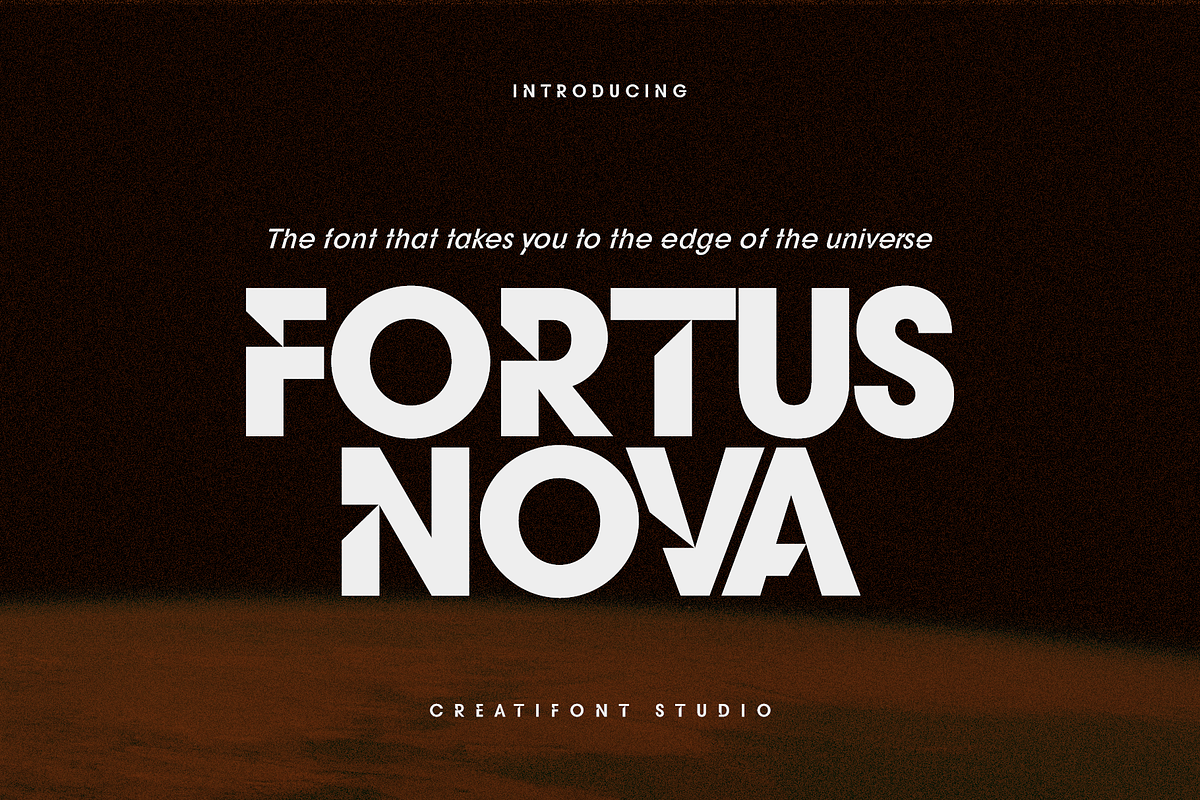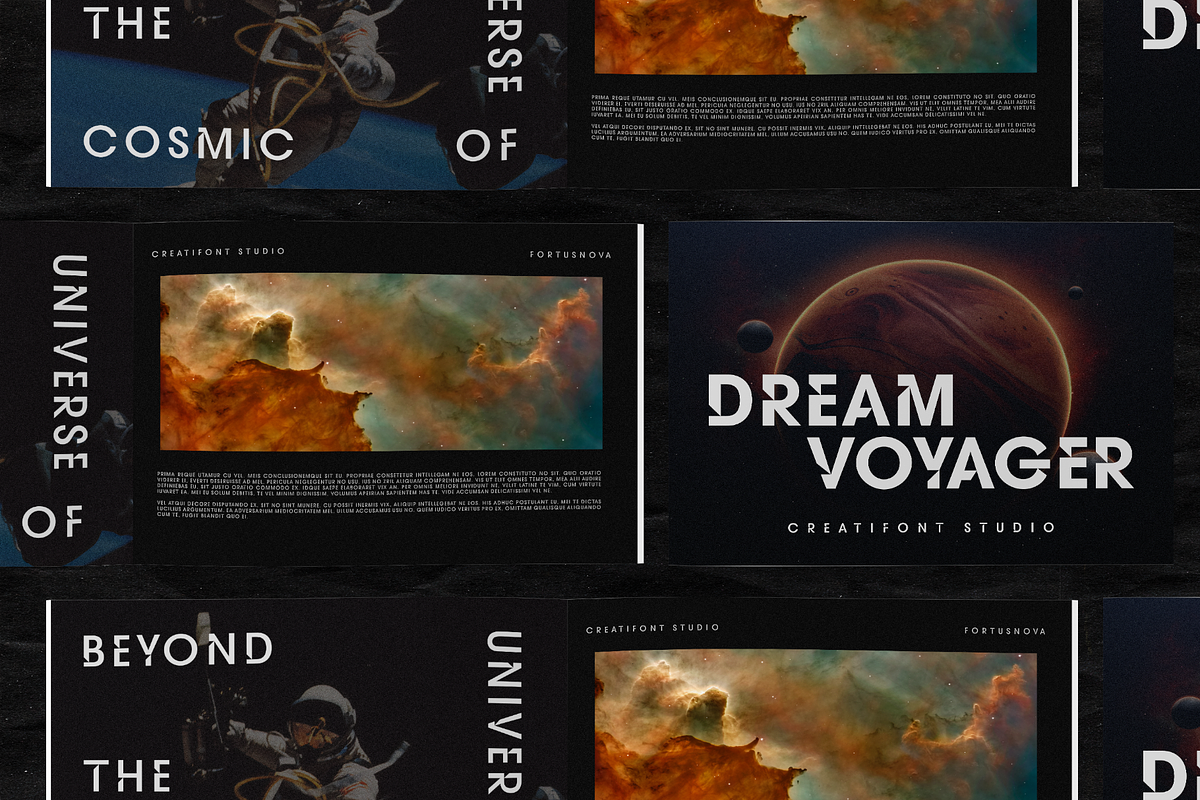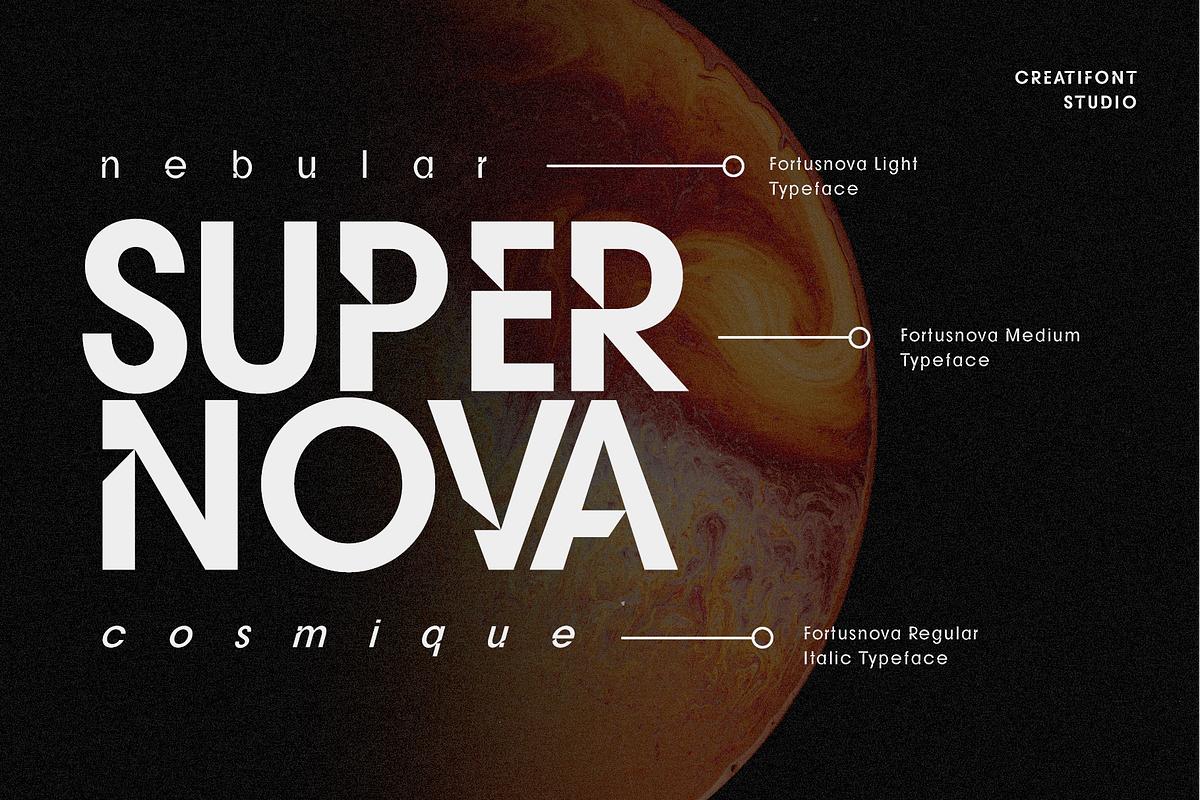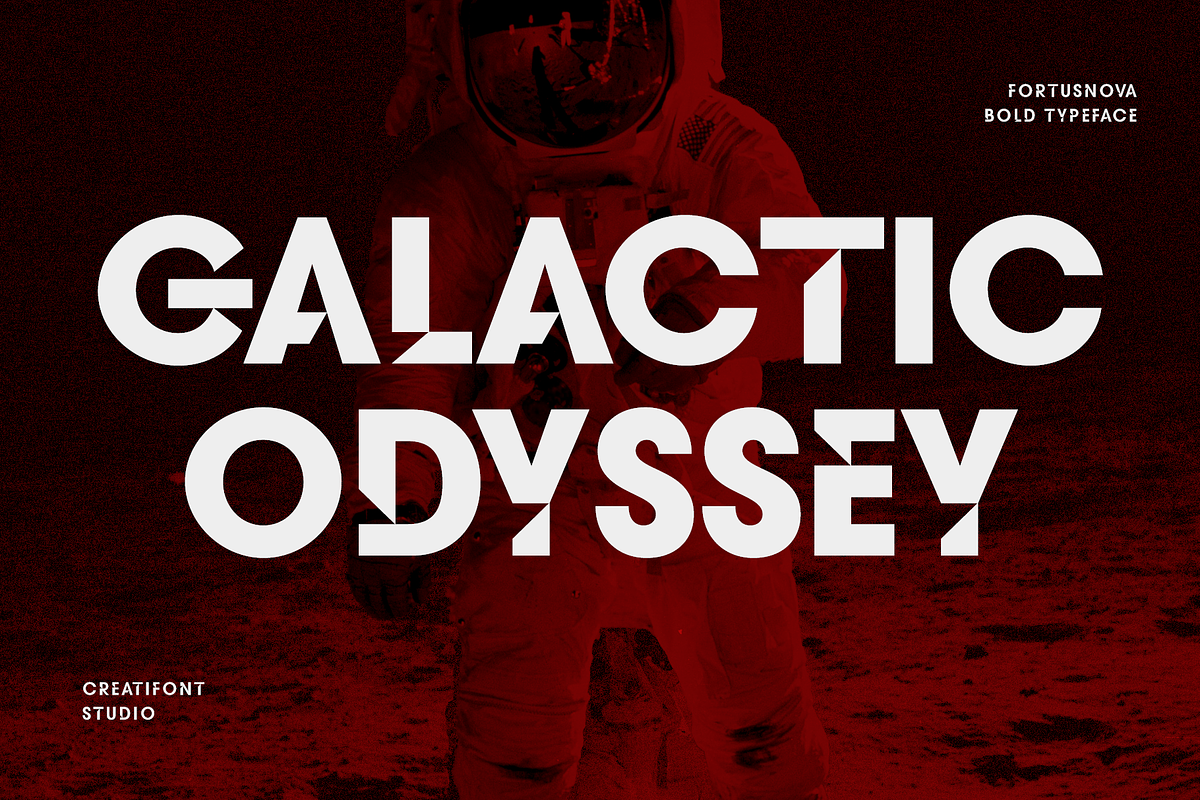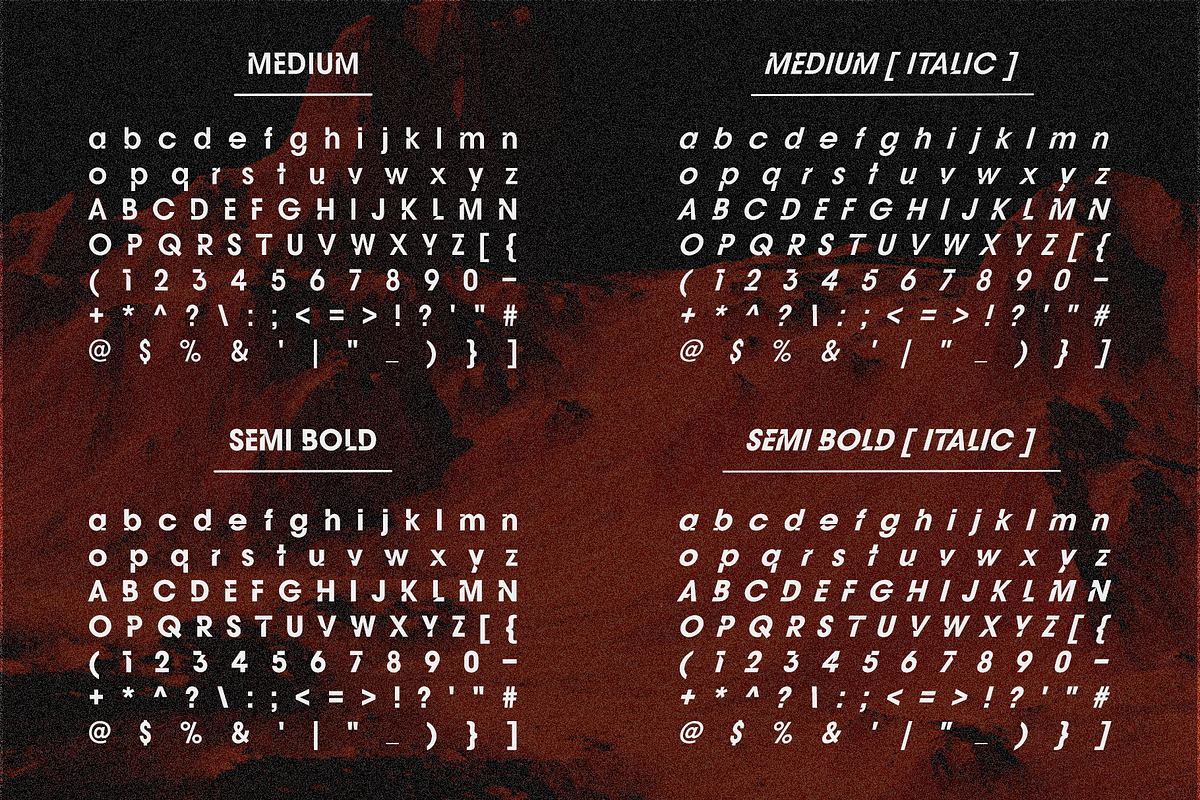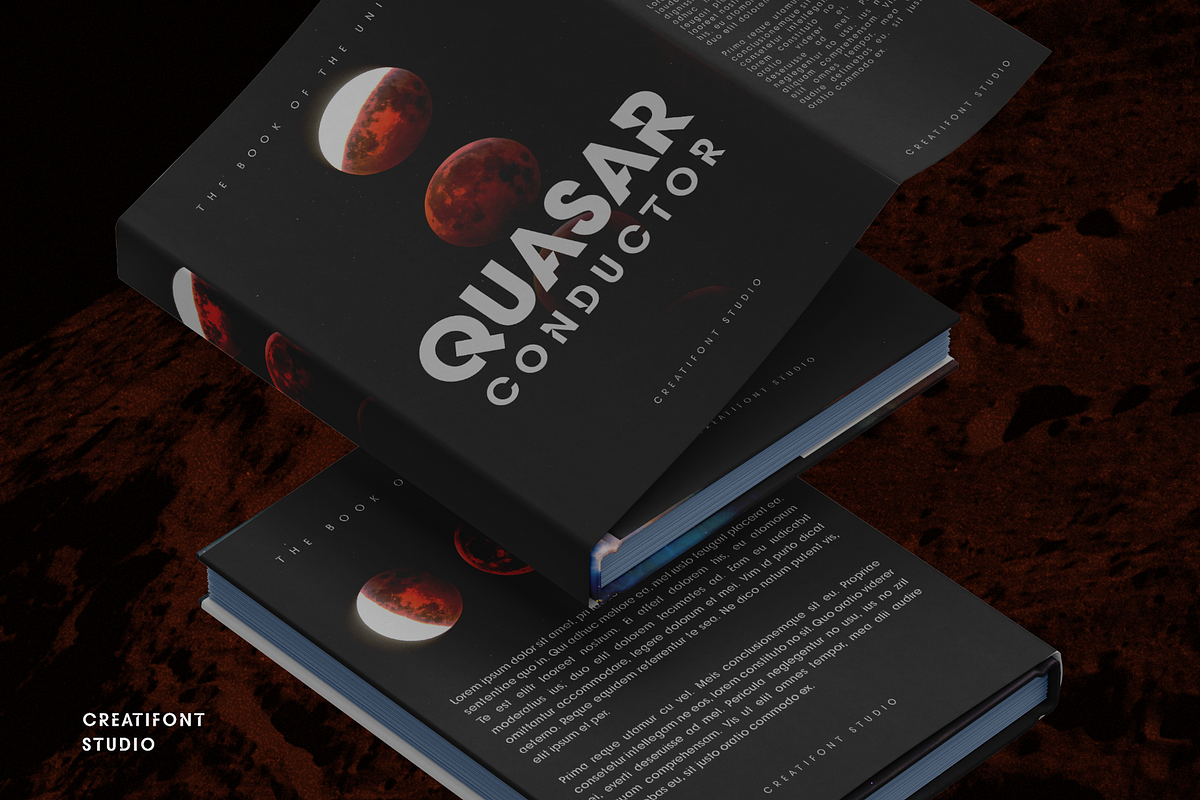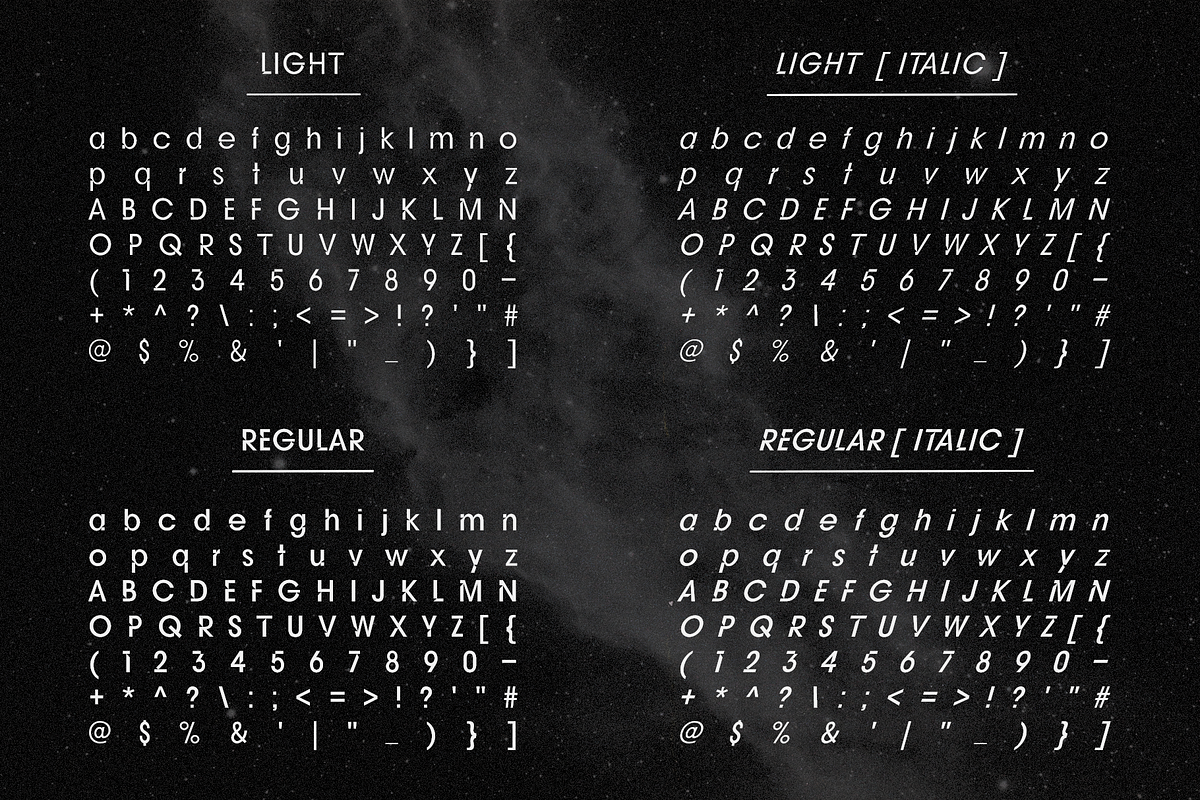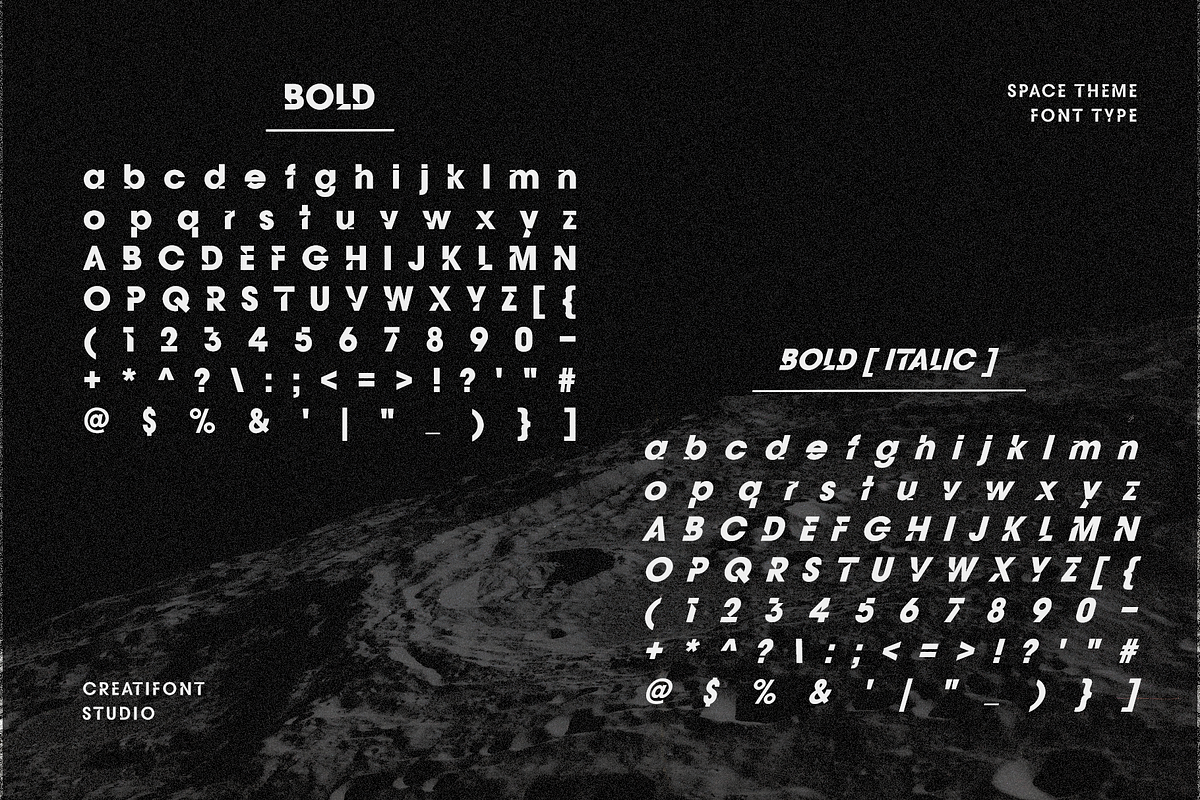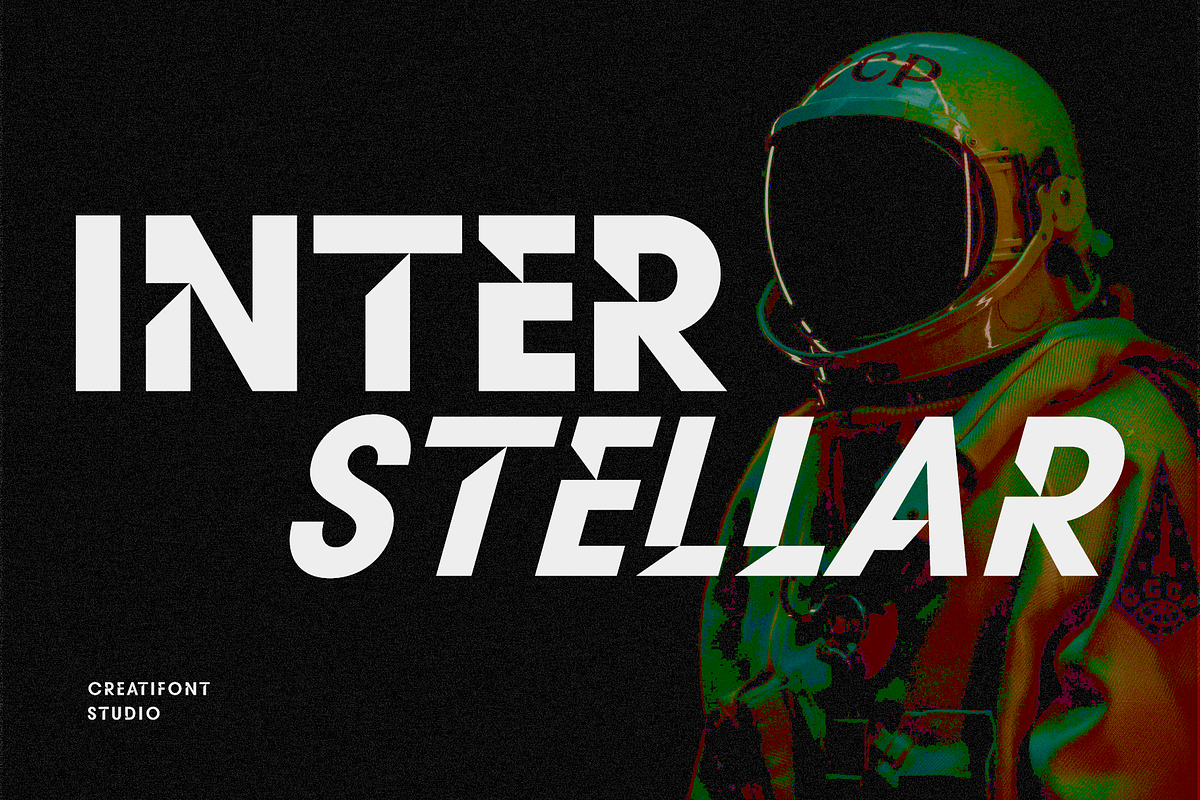
CF Fortusnova - Futuristic Display
Fortusnova - a cutting-edge sans serif font that defies convention. Its unique feature, the ink trap cut, creates a sense of modernity and innovation, allowing for sharp, edgy lines that make each character stand out. Fortusnova boasts a remarkable range of weight variations, from bold and robust to sleek and delicate, offering versatility that adapts to your design needs. With a futuristic aesthetic and an eye-catching design, Fortusnova is the perfect choice for projects that demand a blend of contemporary style and typographic flexibility.